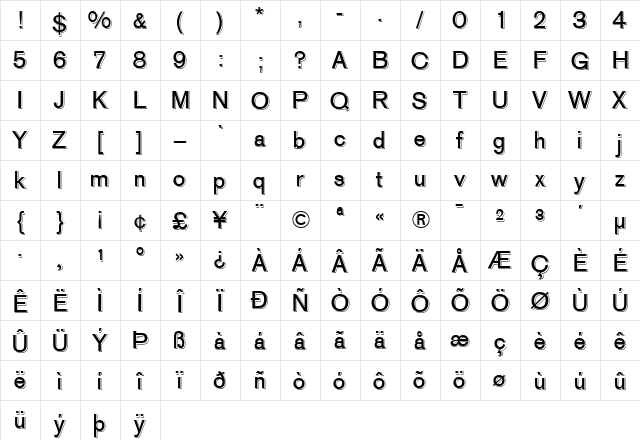
Complete AGOldFaceShaded Roman glyph index. Displaying only characters natively supported by AGOldFaceShaded Roman font.
AGOldFaceShaded is a composed and adaptable typeface that performs quietly and consistently across a wide range of design contexts.